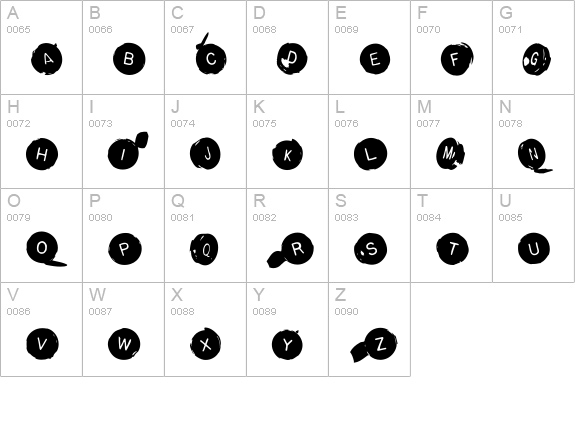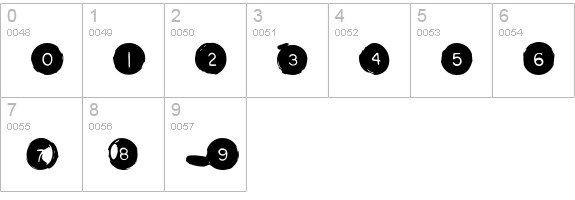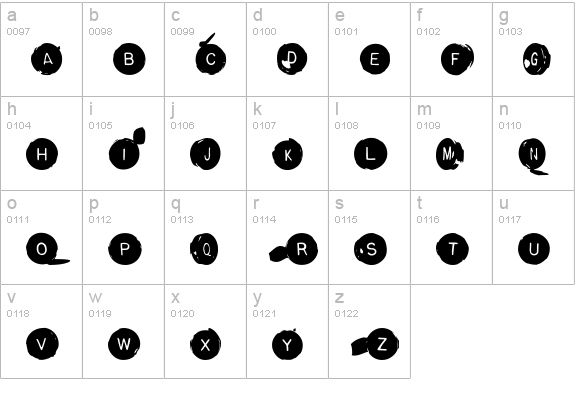
BackspacerRound Font Details
BackspacerRound is a stunningly unique and versatile font that is sure to capture the attention and imagination of designers and typographers alike. With its rounded edges and contemporary style, this font brings a fresh and modern twist to any project. This font features a harmonious balance between elegance and playfulness, making it perfect for a wide range of design applications. Whether you are creating a logo, branding materials, posters, or social media graphics, BackspacerRound will add a touch of creativity and charm to your work. What sets BackspacerRound apart from other fonts is not only its aesthetic appeal but also the fact that it is freely available to download at FontsMarket.com. Yes, you read that right! This incredible font can be yours without having to spend a dime. So go ahead and unleash your creativity without any limitations or constraints. With its extensive character set and multiple language support, BackspacerRound ensures that your designs will look exceptional in any language or context. Its smooth curves and well-defined letterforms make it highly legible, even at small sizes, ensuring that your message is conveyed effortlessly. So why wait? Download BackspacerRound today from FontsMarket.com and experience the freedom to create stunning designs that truly stand out. Embrace the beauty of this font, and let your creativity soar to new heights.